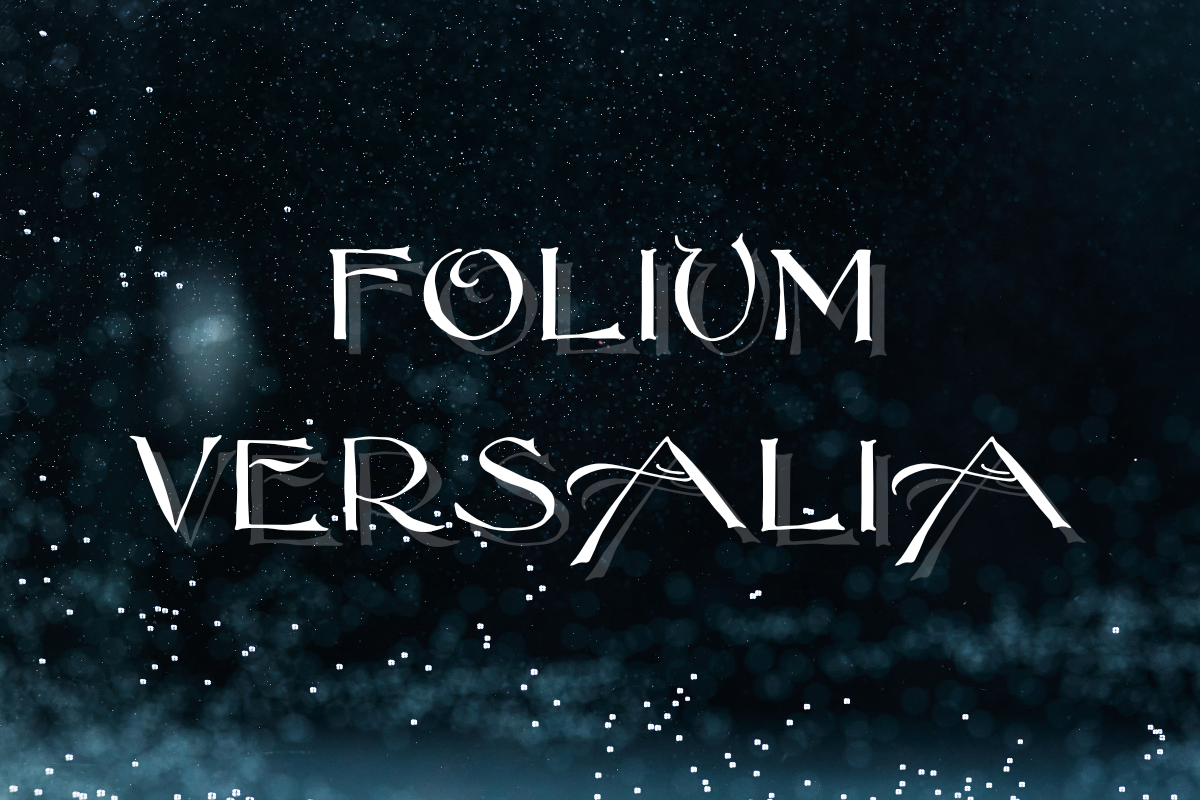
FoliumVersalia Font Free Download is an elegant and artistic display typeface inspired by classic calligraphy and botanical beauty. With its ornate letterforms and refined aesthetic, this font is perfect for luxury branding, book covers, wedding invitations, boutique packaging, and any project that calls for a timeless, high-end look.
Each character in FoliumVersalia feels carefully crafted, blending tradition with a modern edge. Whether you're designing for print or digital, it adds a sophisticated flourish that commands attention. FoliumVersalia Font Free Download gives you the opportunity to explore its elegance in personal projects before investing in a commercial license.
Elevate your typography with FoliumVersalia — a display font where graceful curves meet artistic expression.